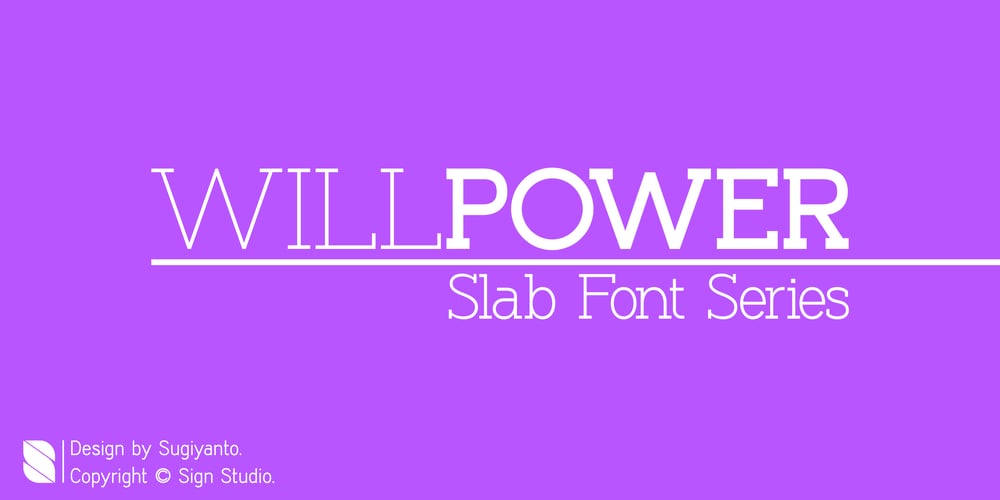
Willpower Slab Font Family was designed by Sugi Yanto and published by Sign Studio. Willpower Slab contains 5 styles and family package options. Willpower Slab is made to write neatly and to make it easy to read properly. Smooth design and balanced thickness. Each character has been set kerning. You can just write comfortably with him 5 thickness options.